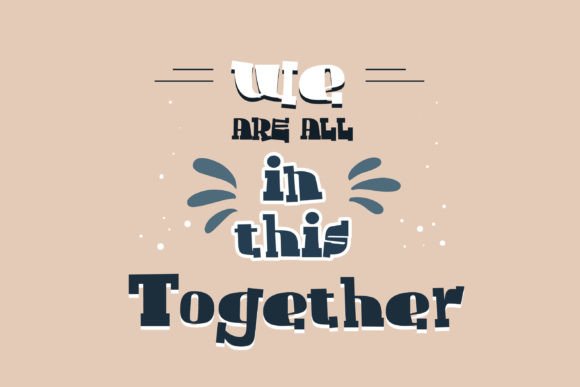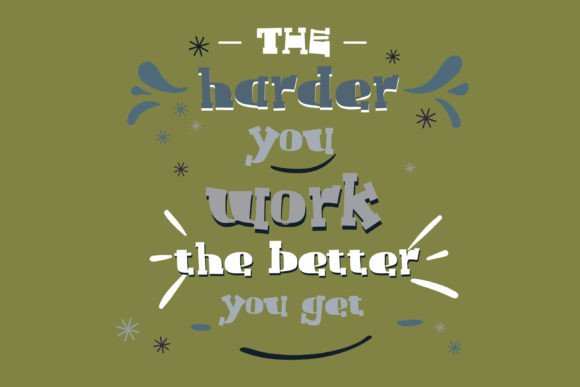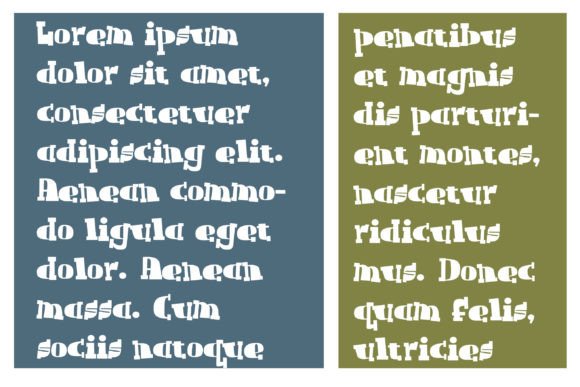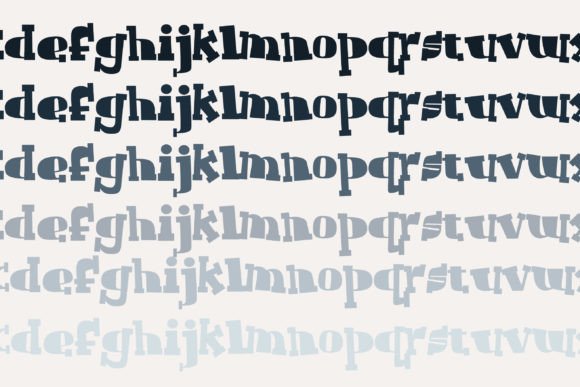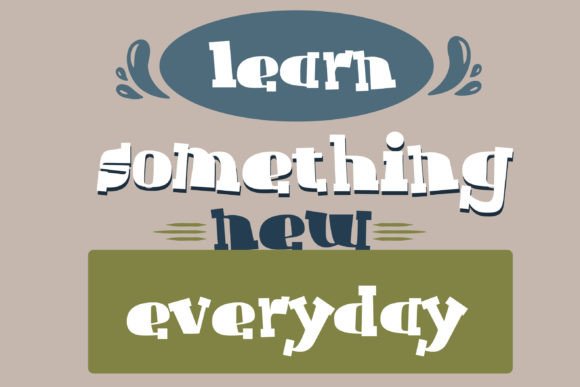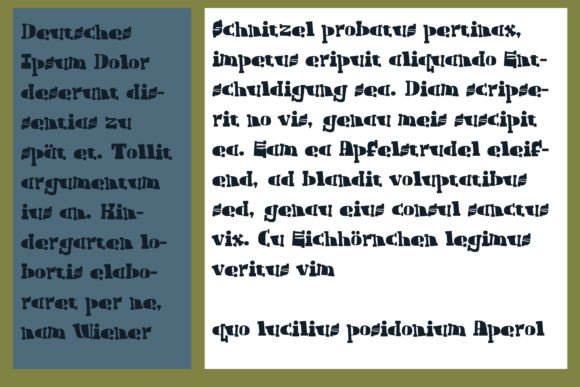
The Fixation Font: A Masterpiece of Bold Elegance
I still remember the design project that led me to discover the Fixation Font. I was working on a branding campaign for a luxury client, and I was struggling to find the perfect font that would convey both sophistication and boldness. The client wanted a font that would make their titles and headings stand out, but still maintain a level of elegance and refinement. After hours of searching, I stumbled upon Fixation, and it was love at first sight ✨.
So, what makes Fixation so special? Let’s dive into the good stuff and a few quirks I’ve encountered.
- ✨ Intricate details: Fixation’s intricate details and artistic flair give it a sense of grandeur and sophistication that’s hard to find in other fonts.
- ✅ Versatility: This font is perfect for use in headings, titles, and other attention-grabbing design elements, but it’s also elegant enough for body text.
- 💥 Impact: Fixation is sure to make any project stand out, whether it’s a luxury brand or a creative project.
While Fixation is an amazing font, there are a few things to keep in mind ⚠️:
- 🤔 Legibility at small sizes: Fixation can be a bit tricky to read at very small sizes, so it’s best to use it for headings and titles.
- ⚠️ OpenType features: Some of Fixation’s advanced features, like stylistic alternates and glyphs, may not work in all design software.
The Designer Inspiration Behind Fixation
The story goes that Fixation was inspired by the ornate typography of 19th-century luxury posters. The designer, who wishes to remain anonymous, spent hours pouring over vintage posters and typography books, looking for inspiration. The result is a font that’s both bold and elegant, perfect for luxury brands and creative projects.
| Is Fixation a script font? | No, Fixation is a serif font with a mix of modern and traditional elements. |
| Can I use Fixation for body text? | While Fixation is elegant enough for body text, it’s best used for headings and titles where its boldness and elegance can shine. |
| Does Fixation support OpenType features? | Yes, Fixation supports a range of OpenType features, including stylistic alternates, glyphs, and more. |
| Is Fixation suitable for luxury brands? | Absolutely! Fixation’s sense of grandeur and sophistication makes it perfect for luxury brands looking for a bold, elegant font. |